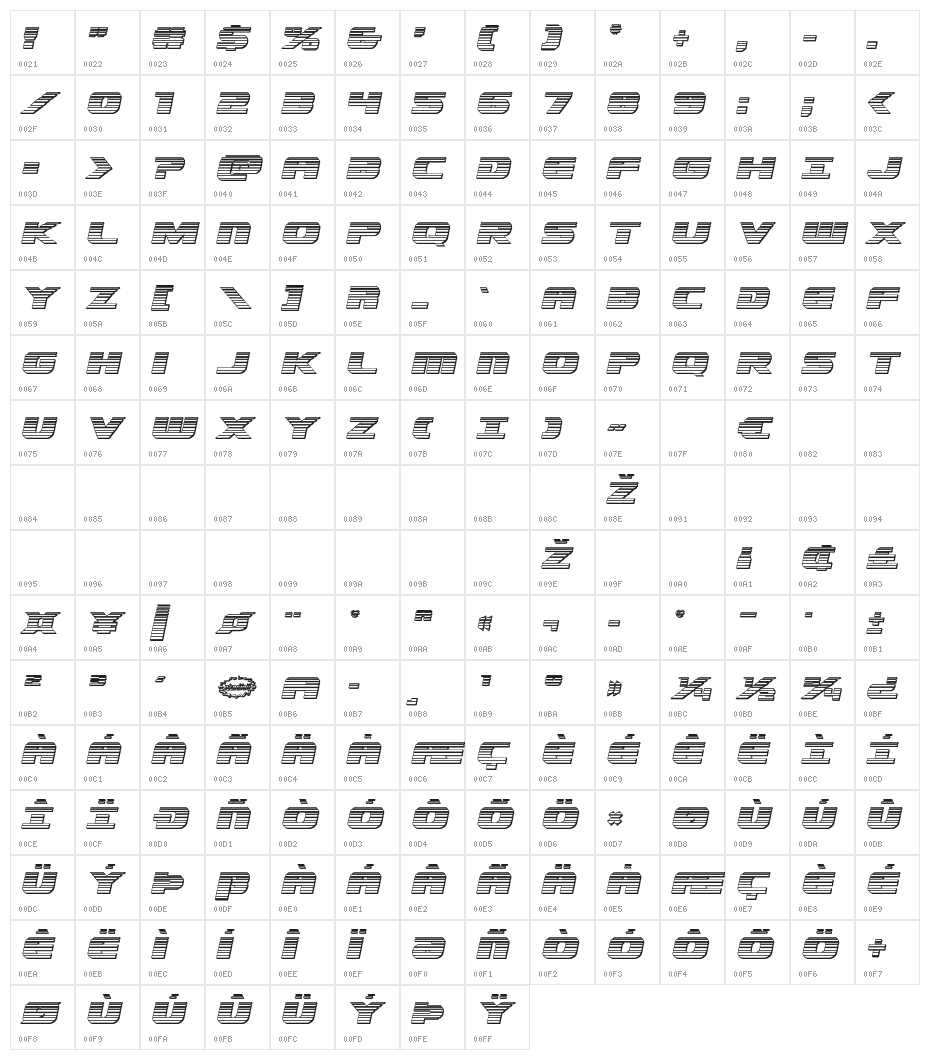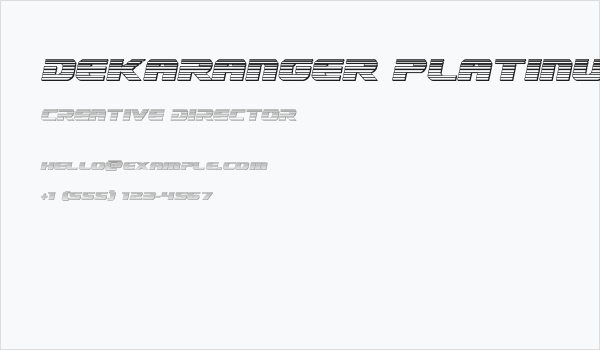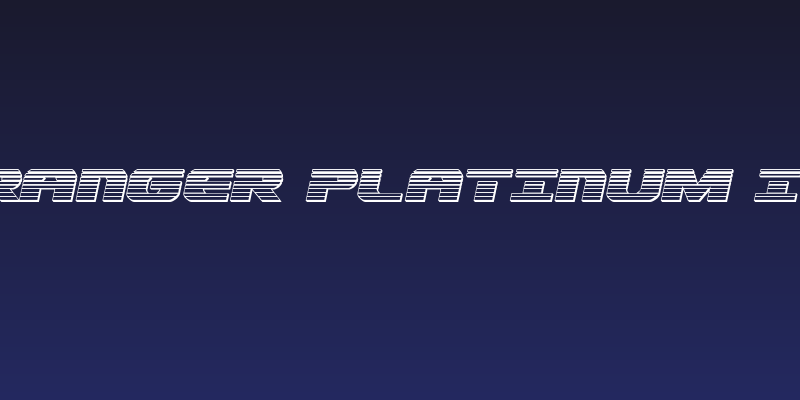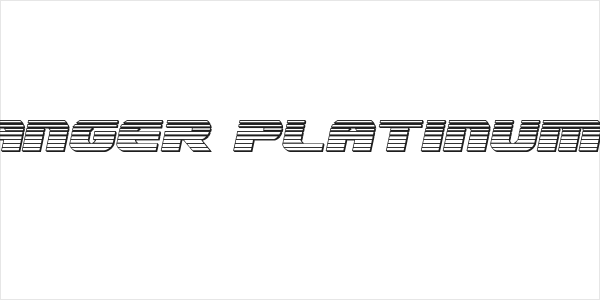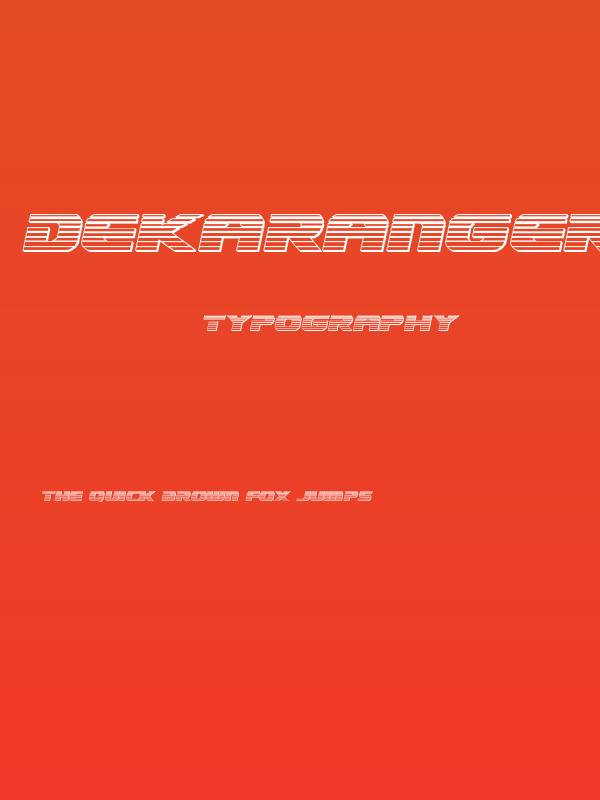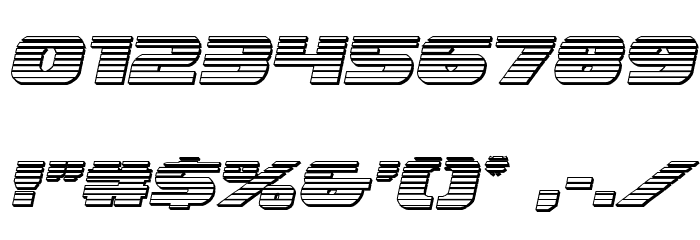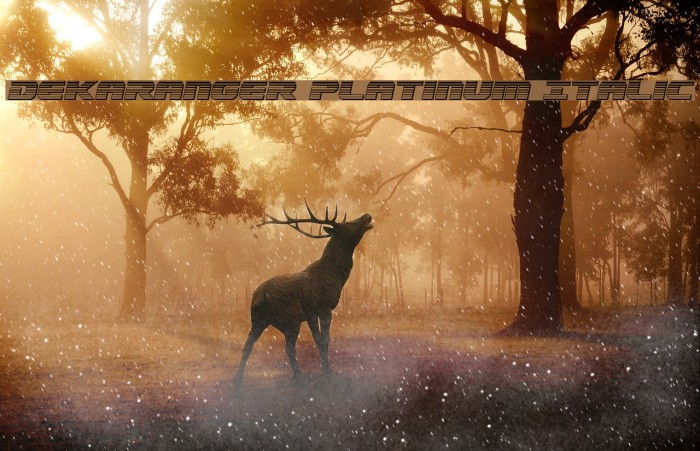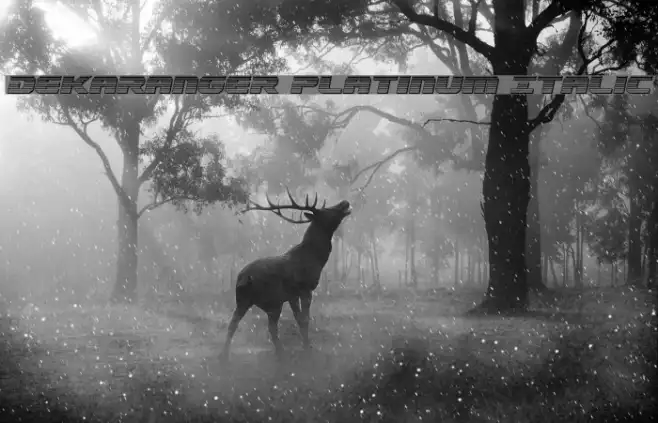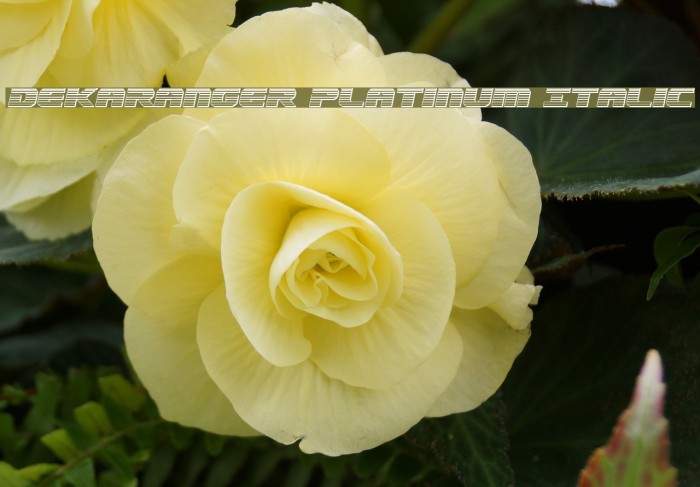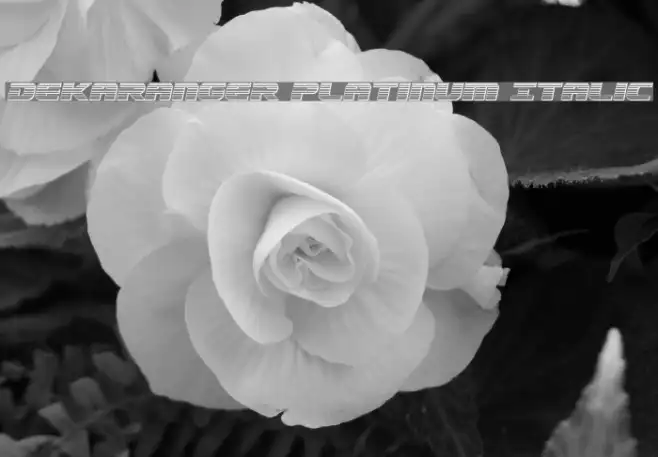
Dekaranger Platinum Italic Font
Dekaranger Platinum Italic Description
This font features a futuristic and dynamic design with a distinct italic slant. The characters are composed of multiple horizontal lines, creating a striped effect that adds depth and movement. The uppercase and lowercase letters maintain a consistent style, emphasizing a sleek and modern aesthetic. Numbers and special characters are designed with the same attention to detail, ensuring uniformity across all glyphs. The font's unique structure makes it stand out, ideal for projects that require a bold and eye-catching typeface.
| Proposed Projects | Ideal for sci-fi themed projects, video game titles, tech branding, and futuristic posters. |